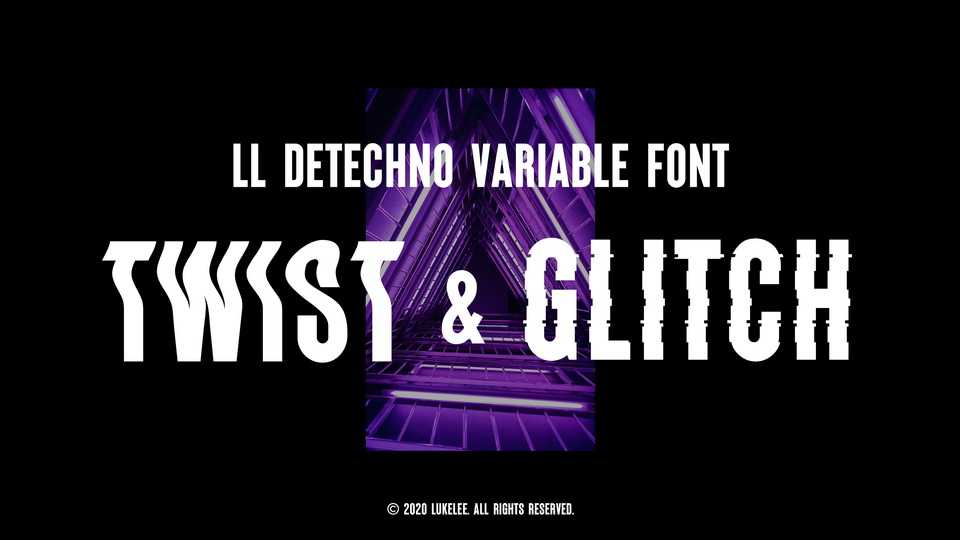
Download LL DEtechno was inspired by minimal techno, and the simplicity and directness of the techno music is reflected in the basic shape of the font. LL DEtechno font is more suitable for headlines and is not recommended for use in the body.